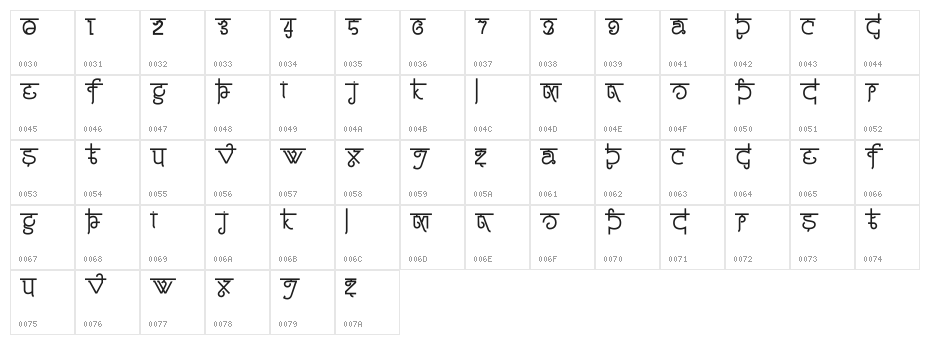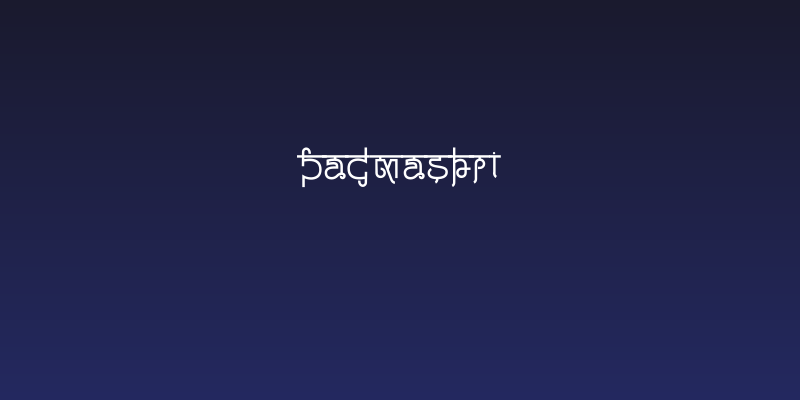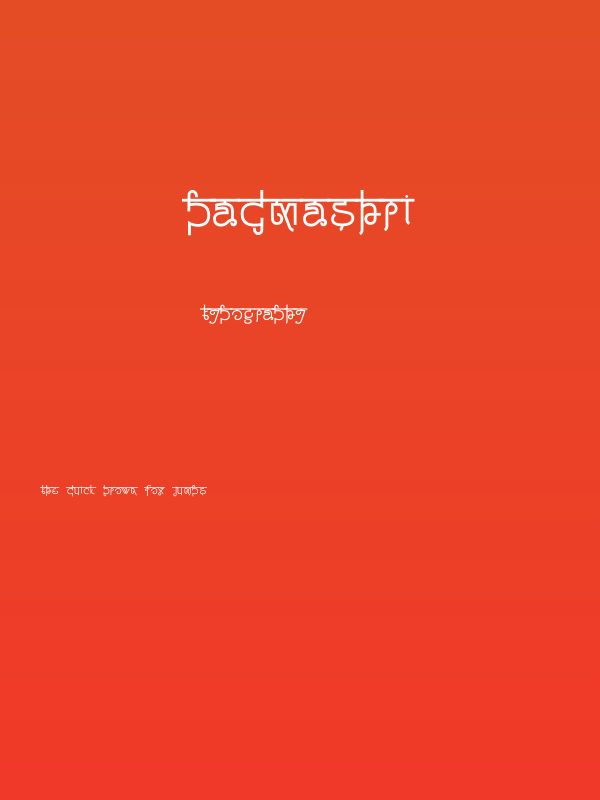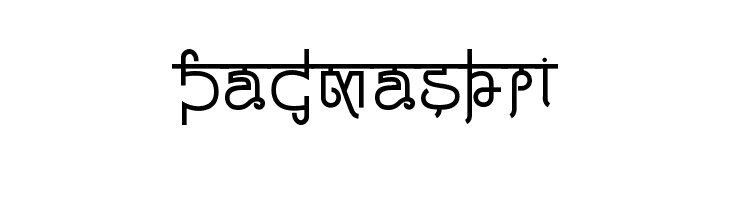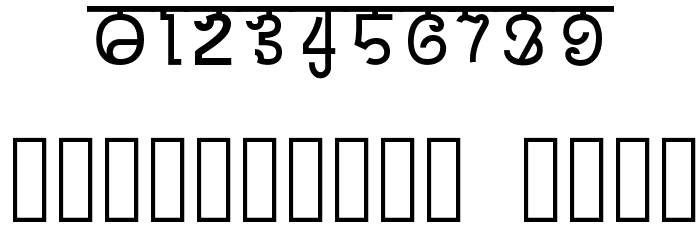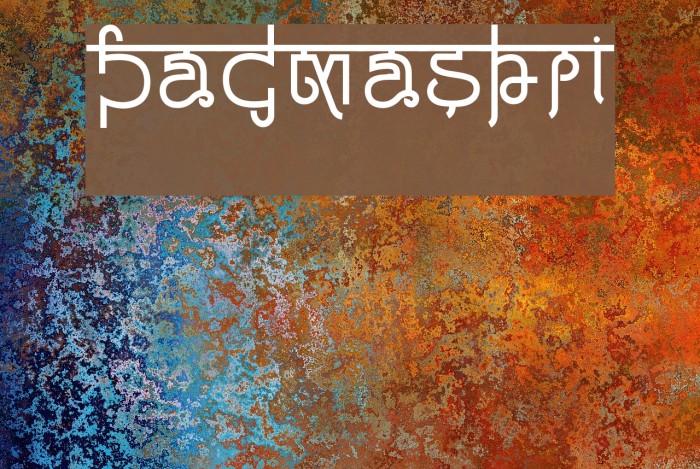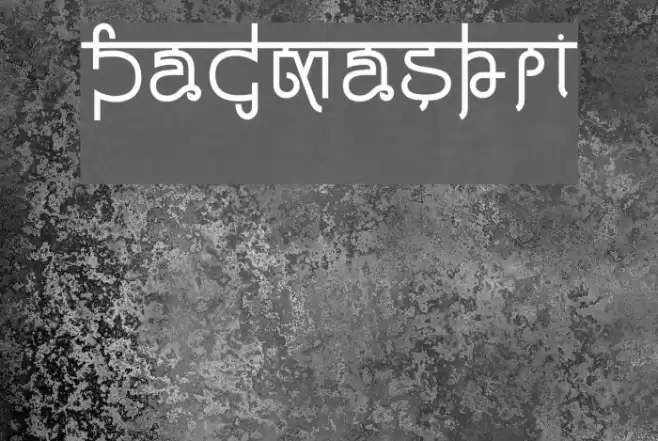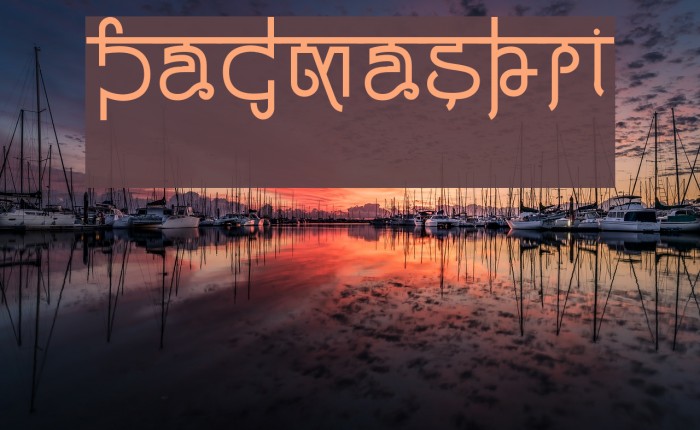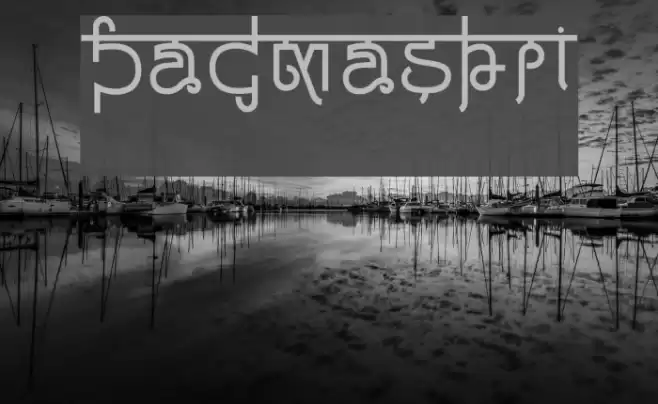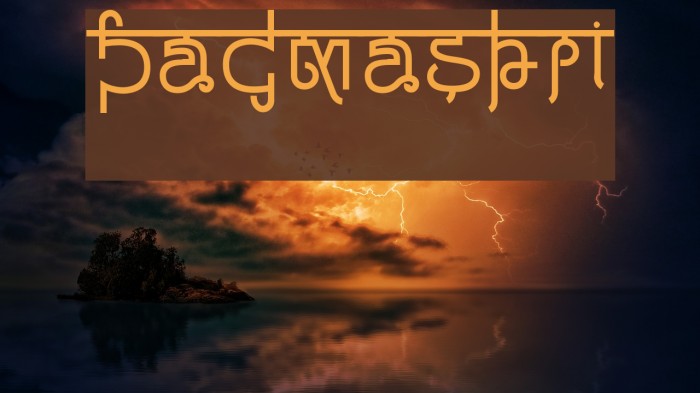
Padmashri Font
Padmashri Description
This font features a unique blend of traditional and modern elements, characterized by its distinct geometric shapes and intricate detailing. The characters exhibit a strong presence with their bold strokes and angular forms, reminiscent of ancient scripts yet with a contemporary twist. The uppercase and lowercase letters maintain a consistent style, with a harmonious balance between curves and straight lines. Numbers are equally stylized, adding to the font's cohesive appearance. The special characters are designed to complement the overall aesthetic, making this font suitable for a variety of creative applications.
| Use Case | Logos, Headlines, Posters |
| Proposed Projects | Ideal for branding, logo design, posters, and cultural projects that require a distinctive and artistic touch. |